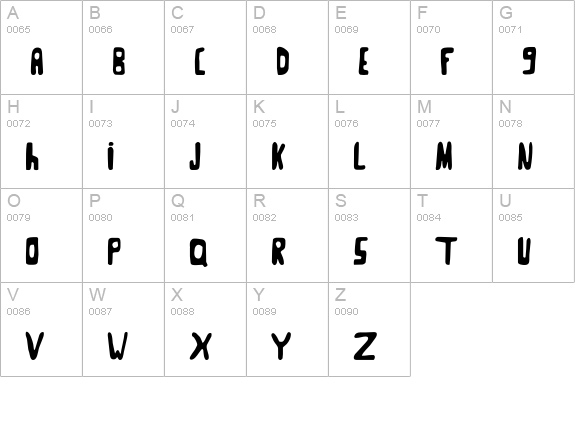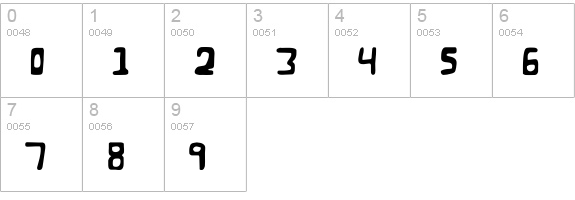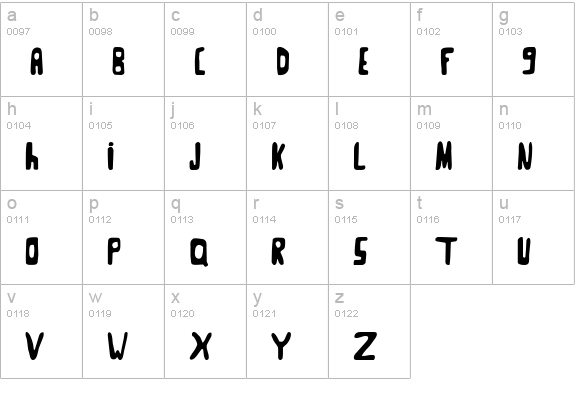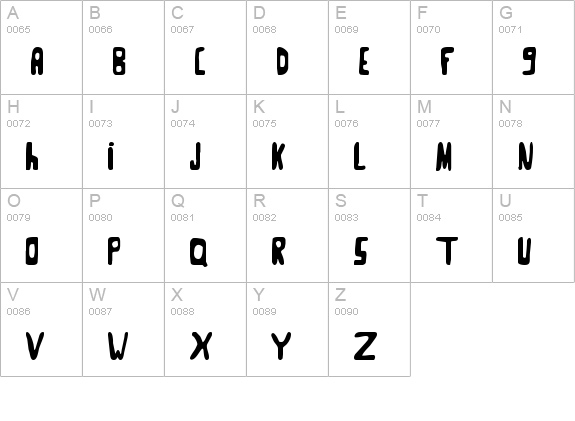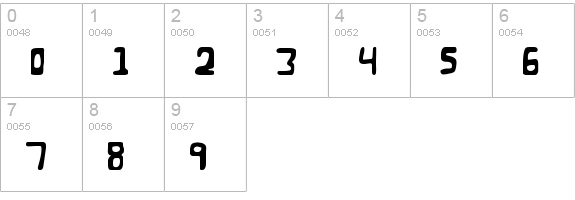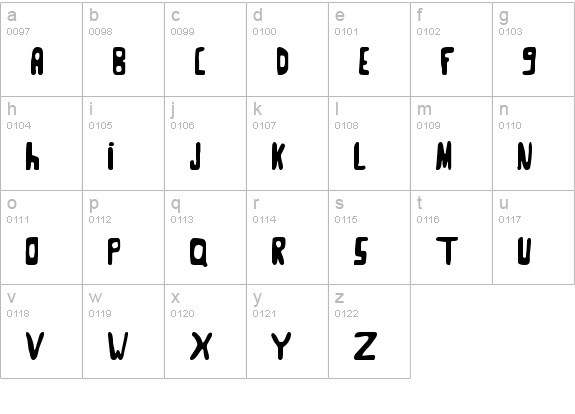
Goose Neck Regular is the standard, neutral variant in the Goose typeface family \xE2\x80\x94 well suited to general body text, paragraphs, and standard typographic work.
Introducing Goose Neck Regular font, a stylish and versatile typeface perfect for all your design needs. This font features elegant curves and a unique design that is sure to make your projects stand out. With its sleek and modern look, Goose Neck Regular font is ideal for a wide range of applications, from branding to packaging to social media graphics. The best part? Goose Neck Regular font is available for free download at FontsMarket.com. That's right, you can add this stunning font to your collection without breaking the bank. Whether you're a professional designer or a hobbyist looking to elevate your projects, Goose Neck Regular font is the perfect choice. Don't miss out on the opportunity to enhance your designs with this beautiful and free font. Download Goose Neck Regular font today and start creating stunning visuals that will leave a lasting impression.